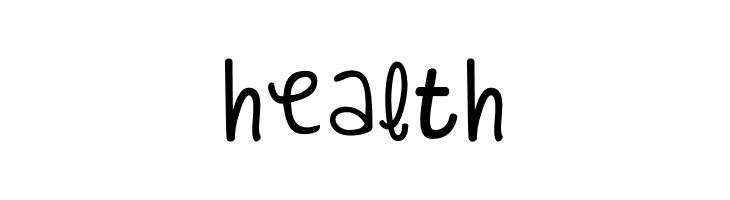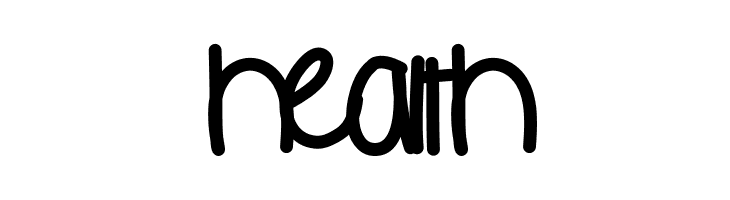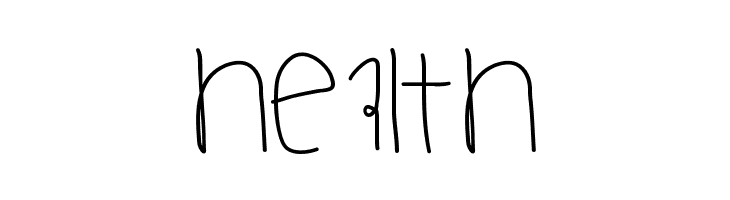
( Fonts by www.foamtrain.com )
An abstract, decorative font with swirling, interconnected lines and a calligraphic flair.
( Fonts by Press Gang Studios - Andeh Pinkard - www.pressgang-studios.com )
A bold, angular font with a futuristic and edgy design.
( Fonts by Vanessa Bays - bythebutterfly.com )
A sleek, modern font with tall, narrow letters and a minimalist aesthetic.
A bold, graffiti-inspired font with a textured, urban aesthetic.
A bold, decorative font with playful geometric shapes and whimsical elements.
( Fonts by Des Gomez )
A bold, hand-drawn font with a playful and whimsical style.
( Fonts by Des Gomez )
A playful, handwritten font with whimsical doodles and a friendly style.